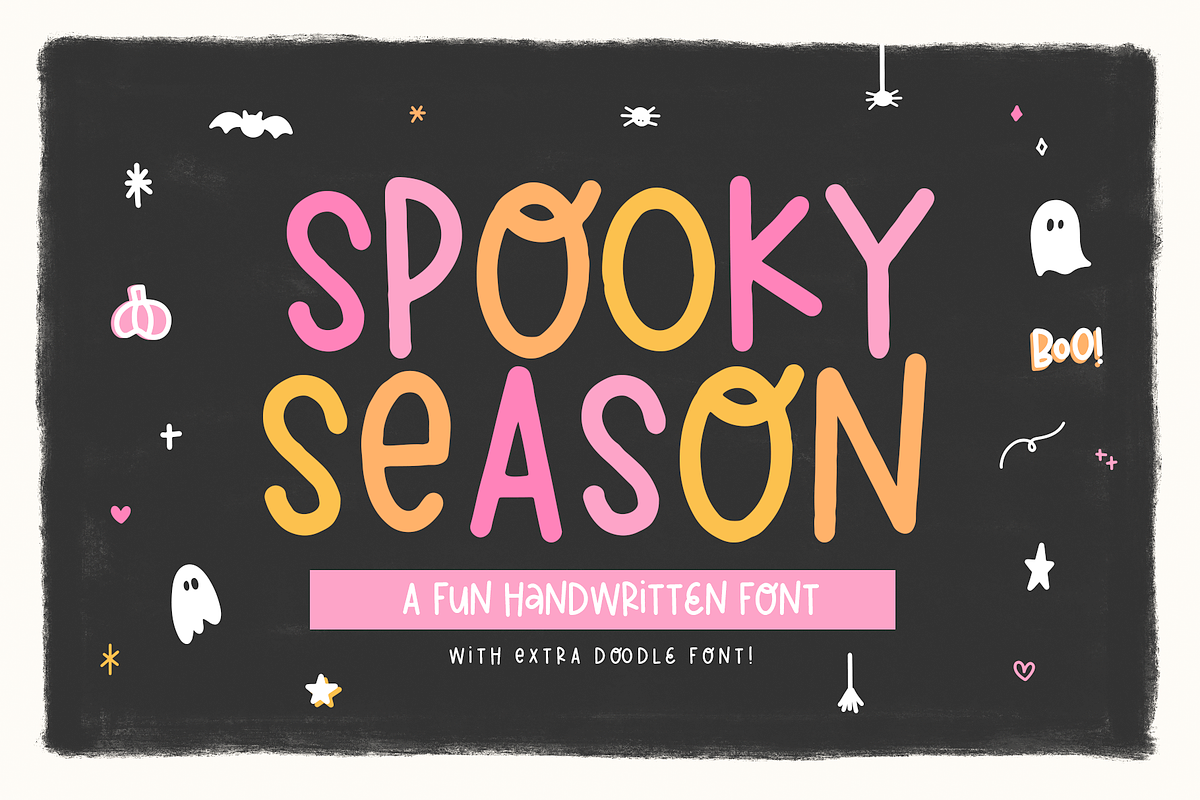
Spooky Season Font and Doodles Free Download
Spooky Season Font and Doodles Free Download is a fun and frightfully festive typeface bundle made for all your Halloween-themed creations. Featuring a playful handwritten font paired with a collection of spooky doodles—like ghosts, bats, pumpkins, and cobwebs—this set is perfect for party invitations, trick-or-treat bags, classroom crafts, stickers, and social media posts.
The font brings a casual, quirky energy while the doodles add personality and seasonal charm. Whether you're designing for kids or creating cute-but-creepy decor, Spooky Season makes it easy to add a handmade, Halloween-ready look to your designs.